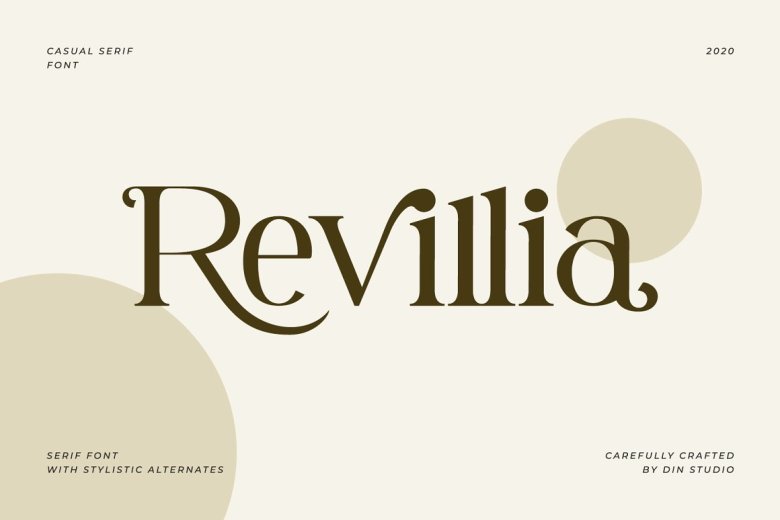
Revillia Font
The Revillia casual serif font. Made for any professional project branding. This is the best for any design projects such as posters, banners, logos, book covers, album covers, quotes, invitations, greeting cards, name cards, headings, print, product design, product packaging, and more. printed products, product packaging, accessories, and for other purposes.
Do you want to title any type of book in any niche? This font can do this. or would you like to use it for text? yes of course can be done. how? check the font preview.
Revillia Serif Font